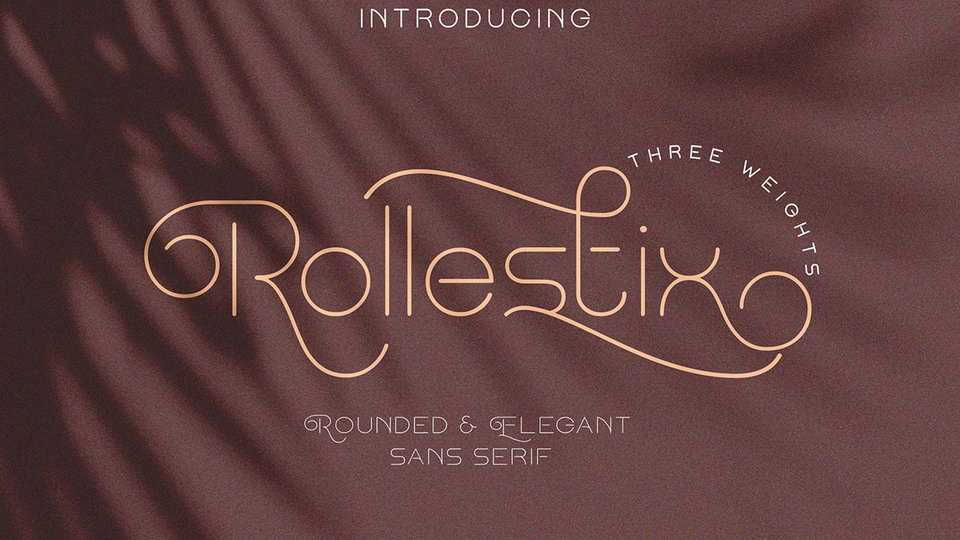
Download Rollestix font, a vintage rounded typeface that has a simple shape, soft structure, and rounded edges. Rollestix’s clean lines, smooth forms, unique shape, and proportions give the face a dynamic, like harmony.
Designer: Artza Graph